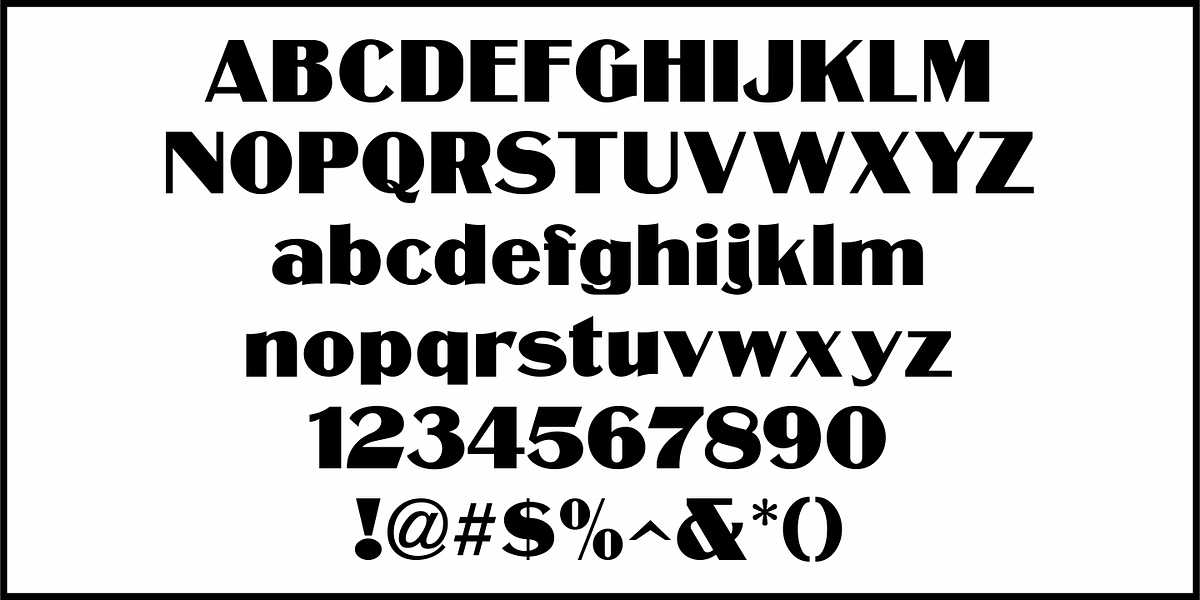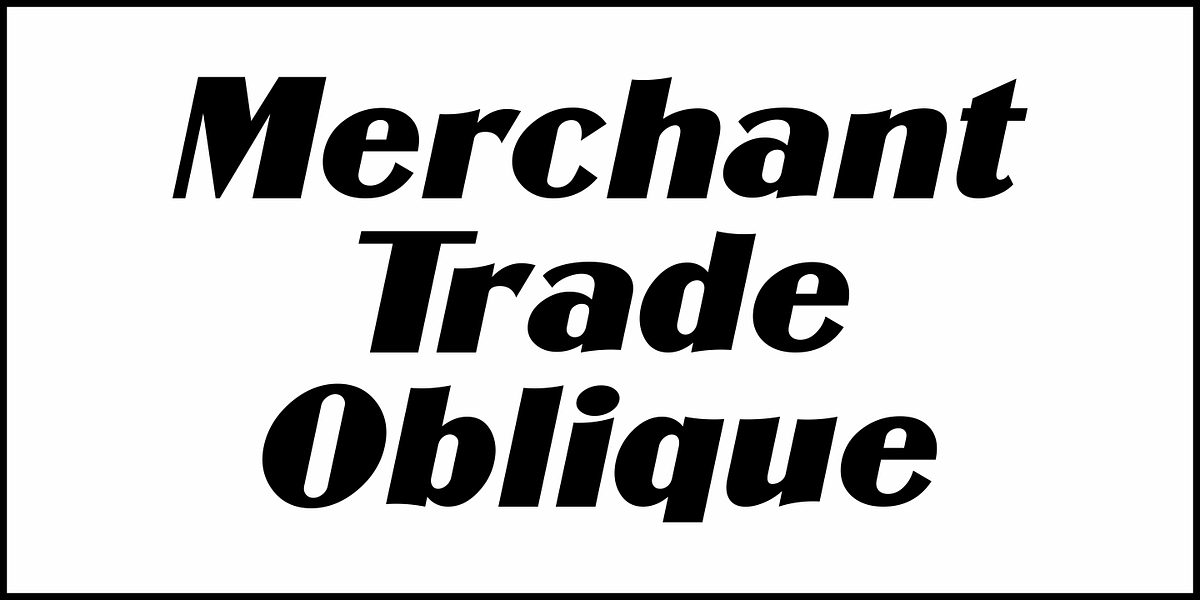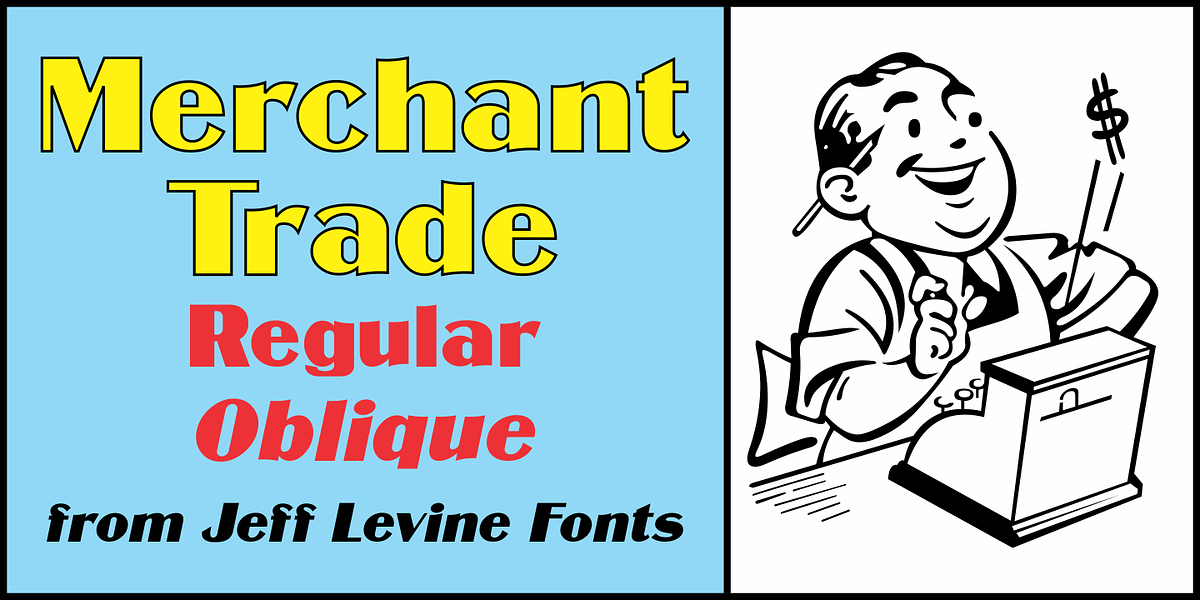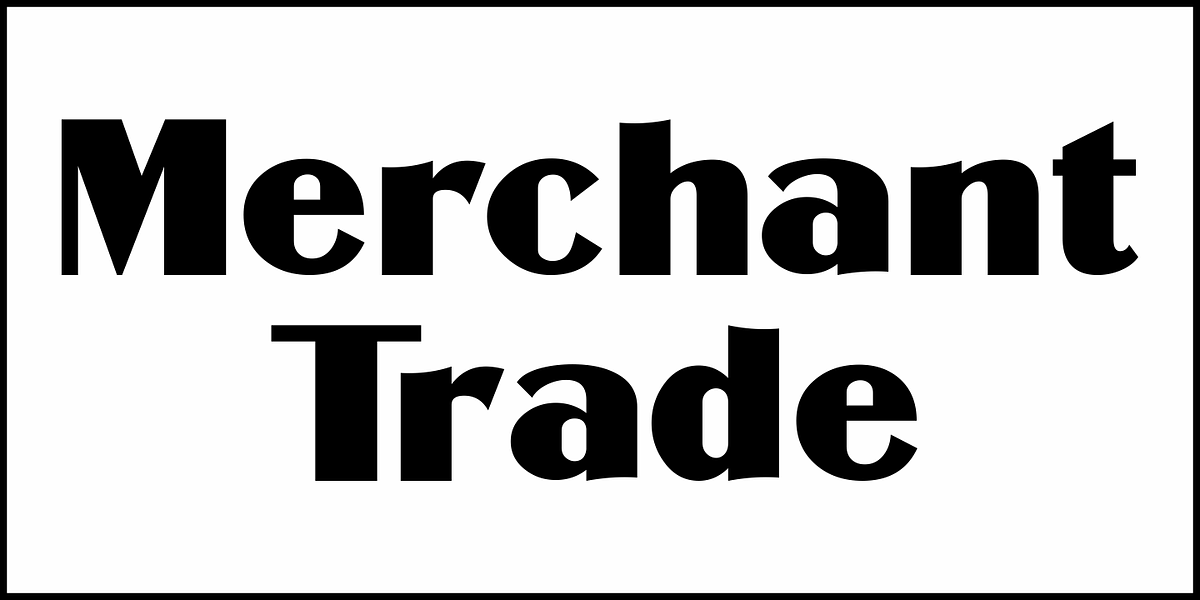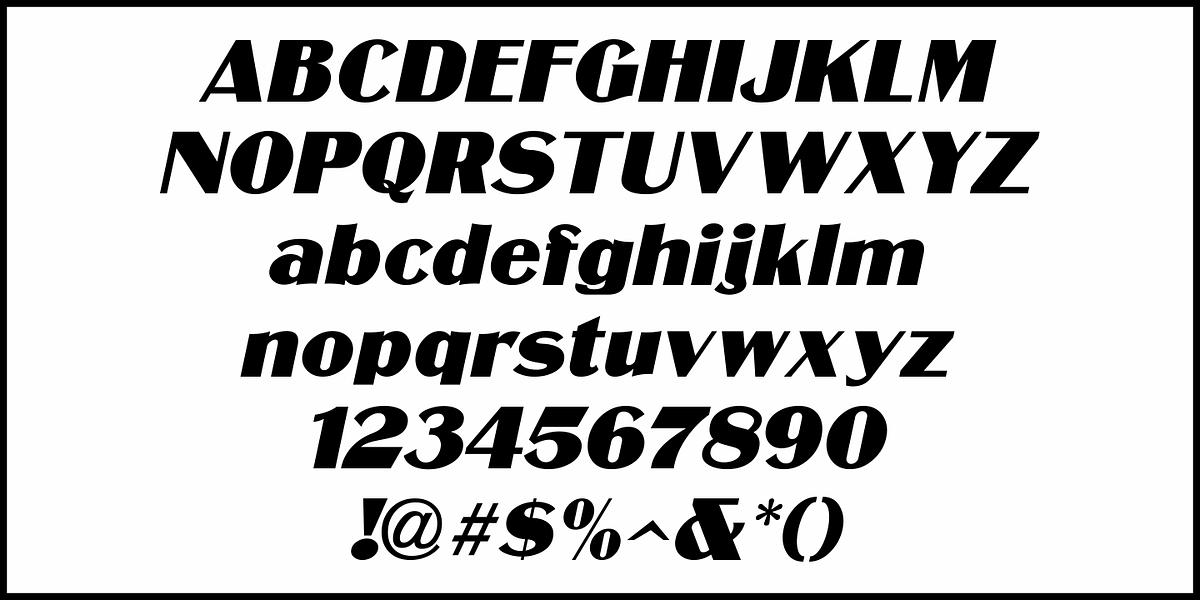
Merchant Trade JNL
A precursor to Art Deco headline/display sans serif typefaces with thick and thin strokes is the Matthews Series (circa 1902). It was manufactured and sold through the Inland Type Foundry of St. Louis, MO.
Digitally redrawn as Merchant Trade JNL, it’s now available in both regular and oblique versions.